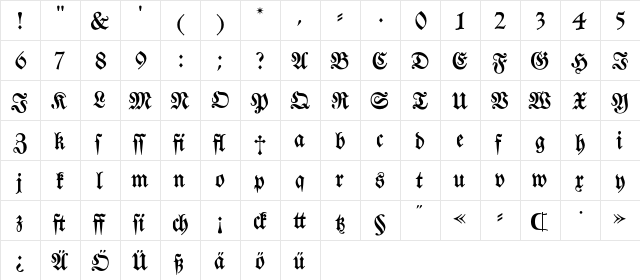
Fraktura Regular
Design Context for Fraktura Typeface
Fraktura draws on the rich tradition of blackletter calligraphy, with dense, angular strokes that evoke medieval manuscripts and old-world craftsmanship.
A natural fit for music packaging, gothic editorial design, and any project that needs historical weight.
Font Pairing: Pair with a clean neutral sans-serif for body copy to let Fraktura's character lead without overwhelming the composition.
Pro Tip: Reserve Fraktura for display and logo use — pair it with a clean sans-serif for body copy to prevent the composition from feeling oppressive.